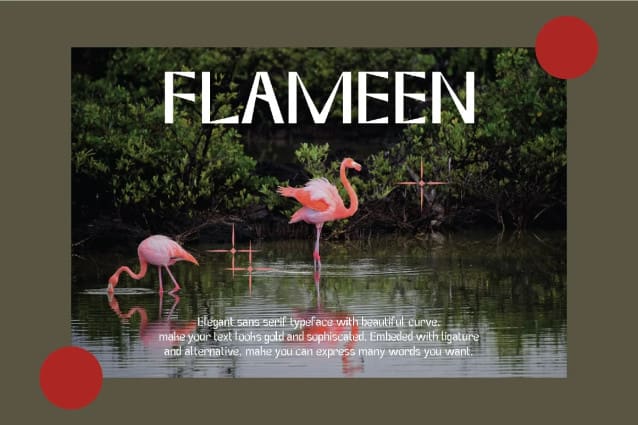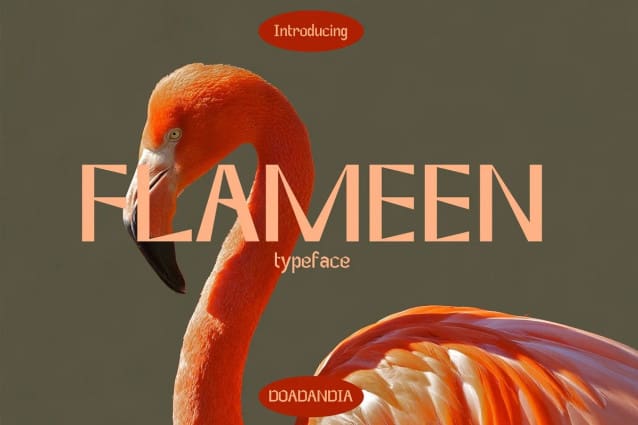
Flameen Font
Flameen Font, this font is good for display in poster, magazine, book cover, landing page etc. With unique curve that makes the font sophiscated and fun. Flameen Sans Serif Typeface support special character to use. This all based on function research before.